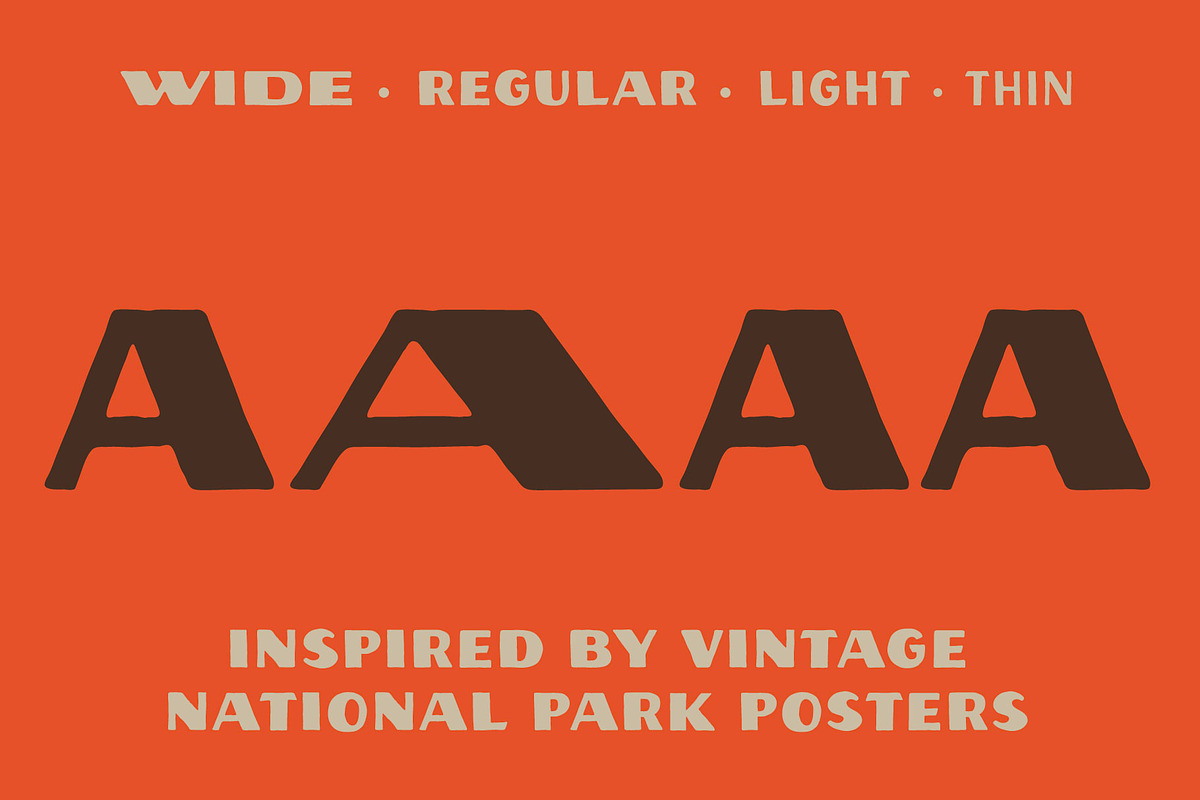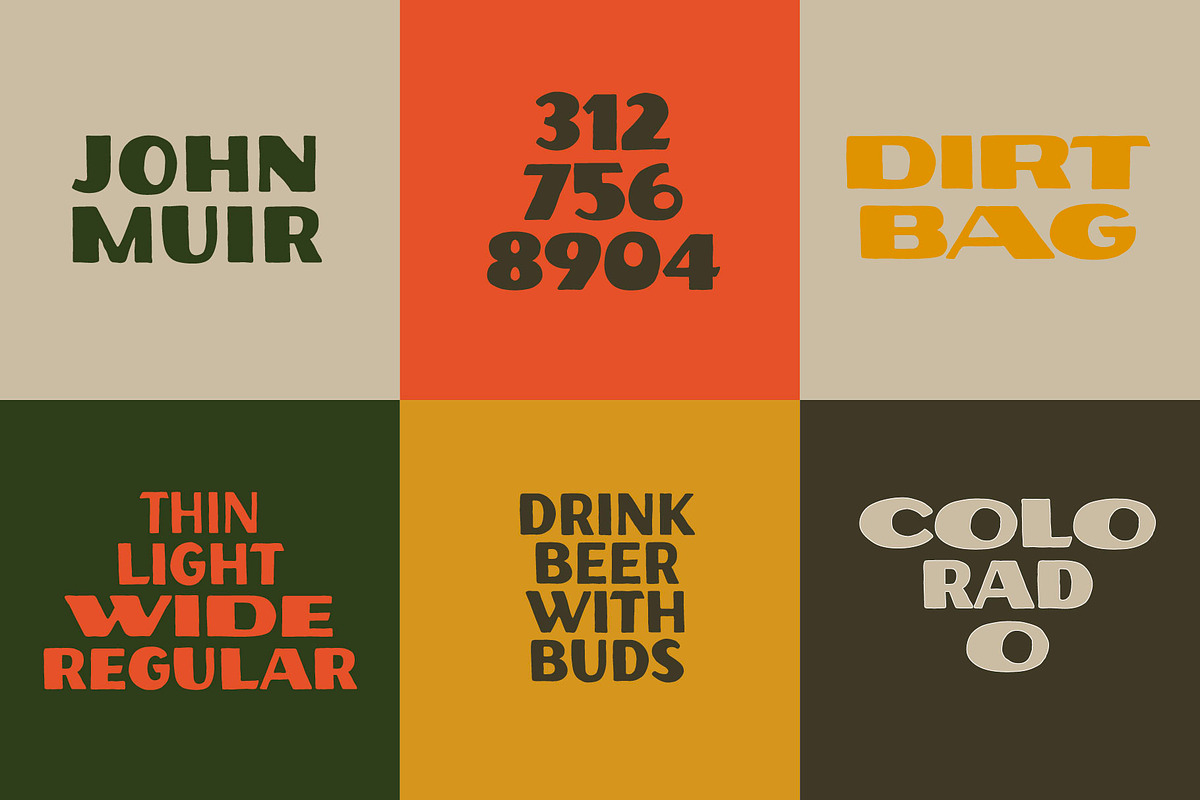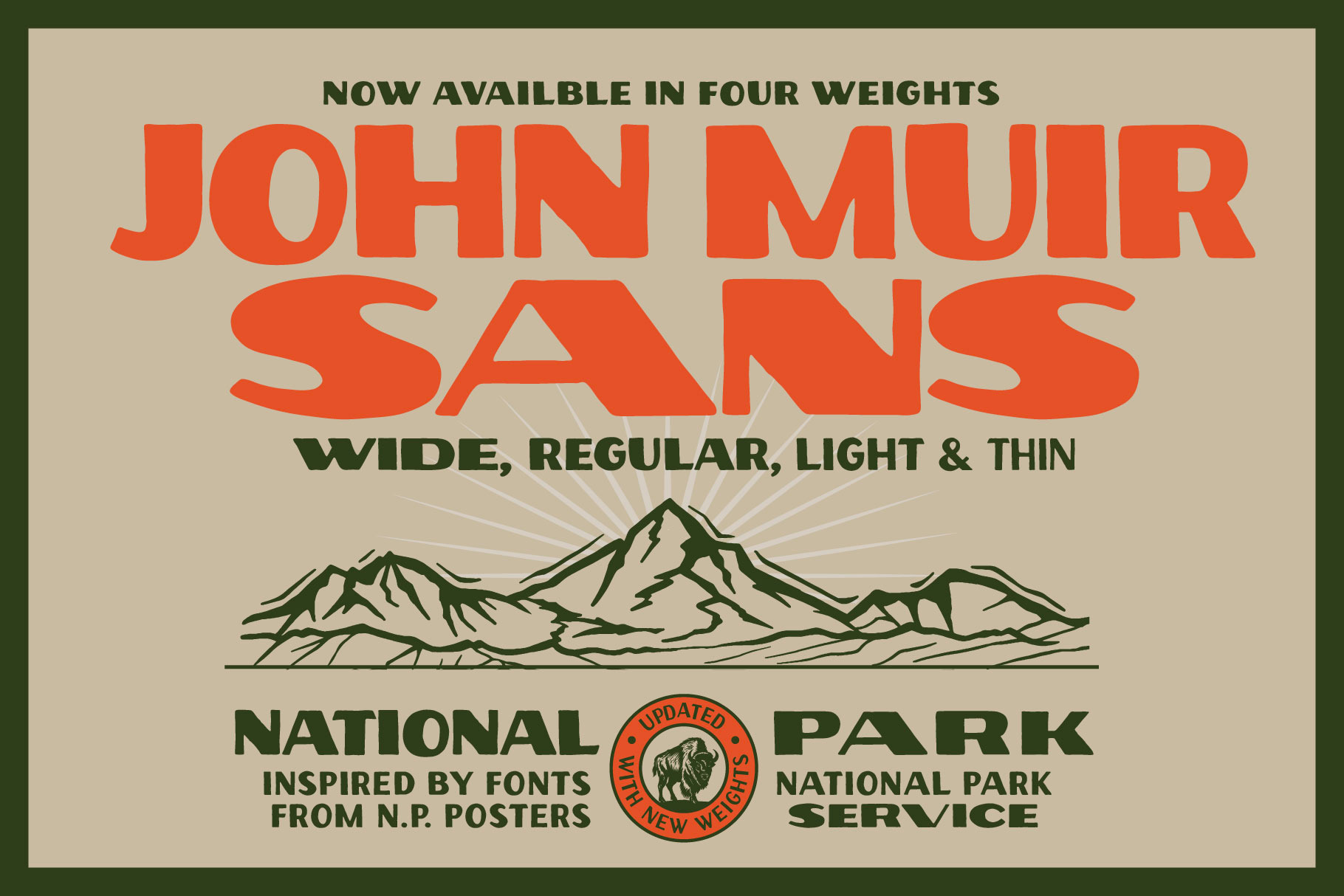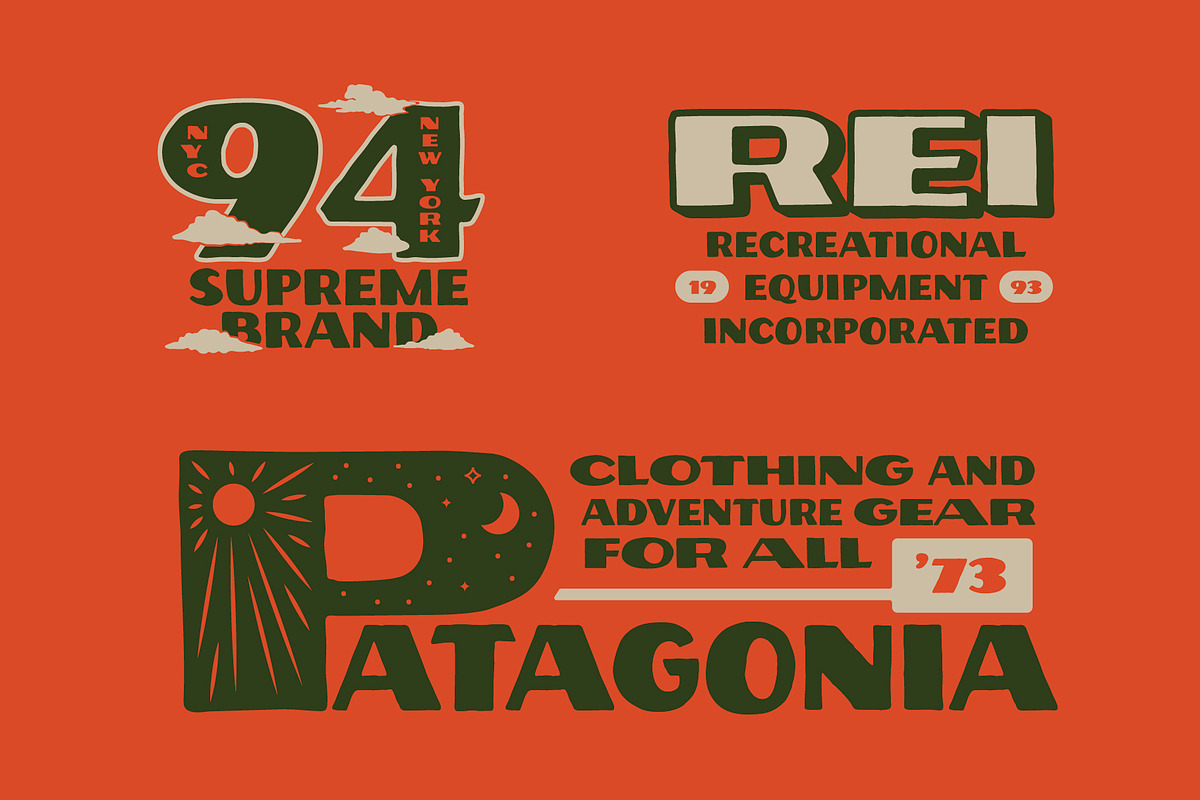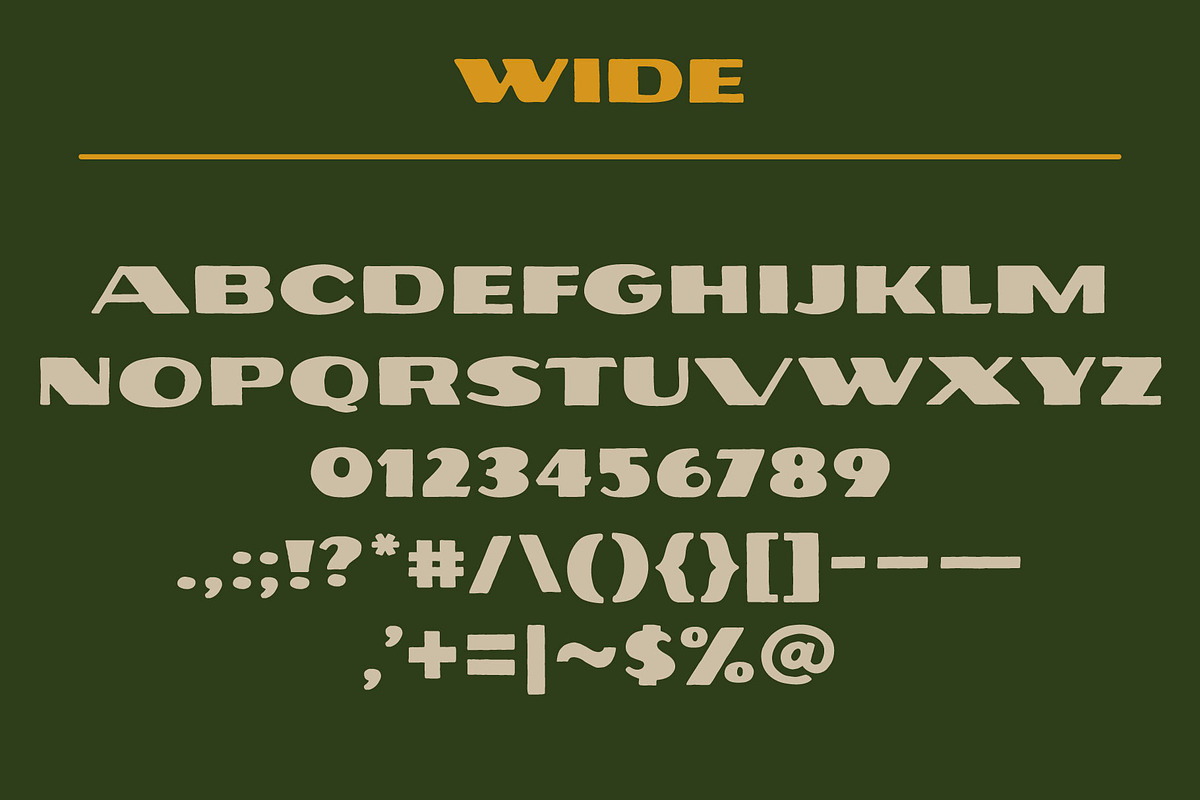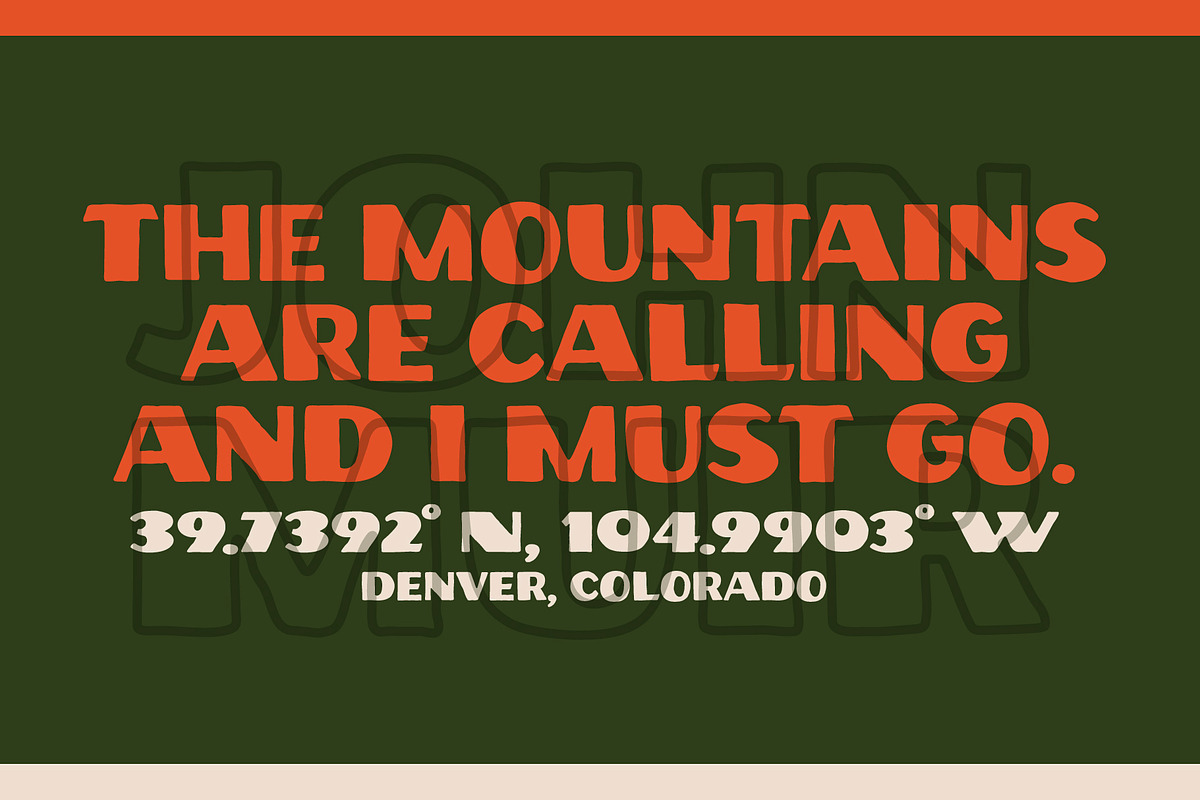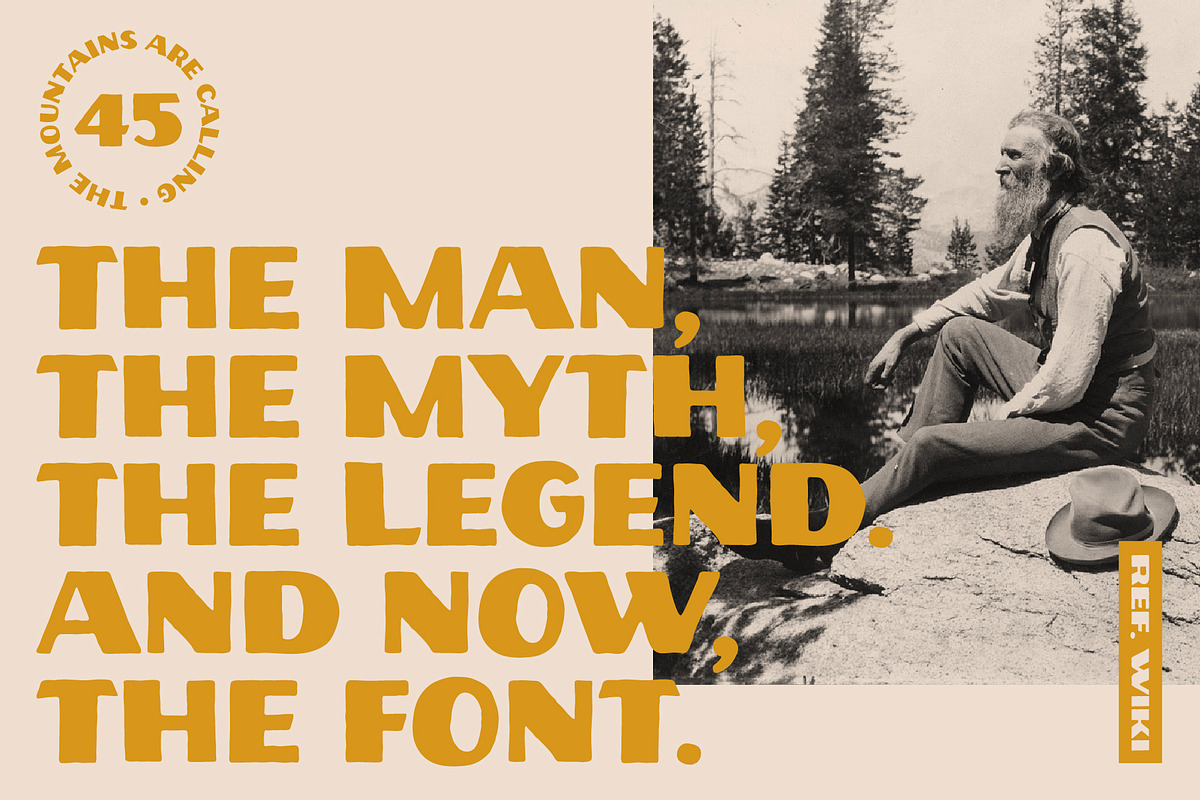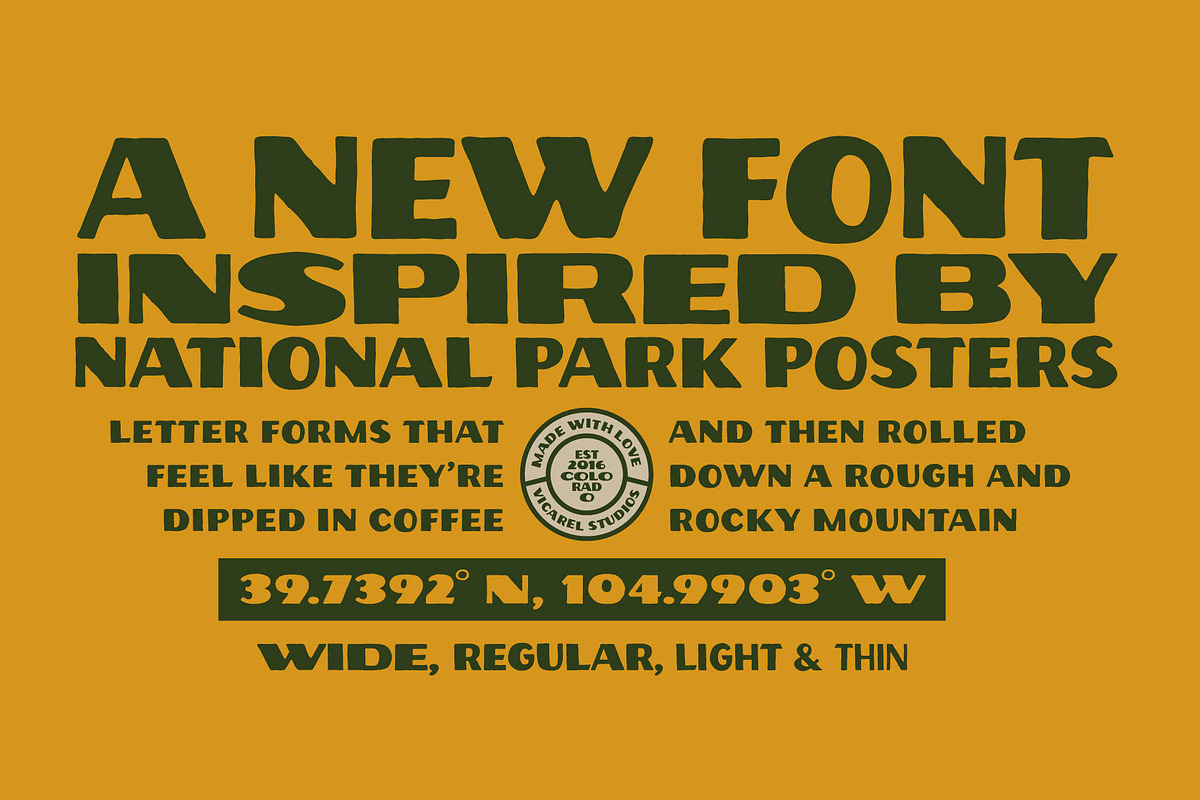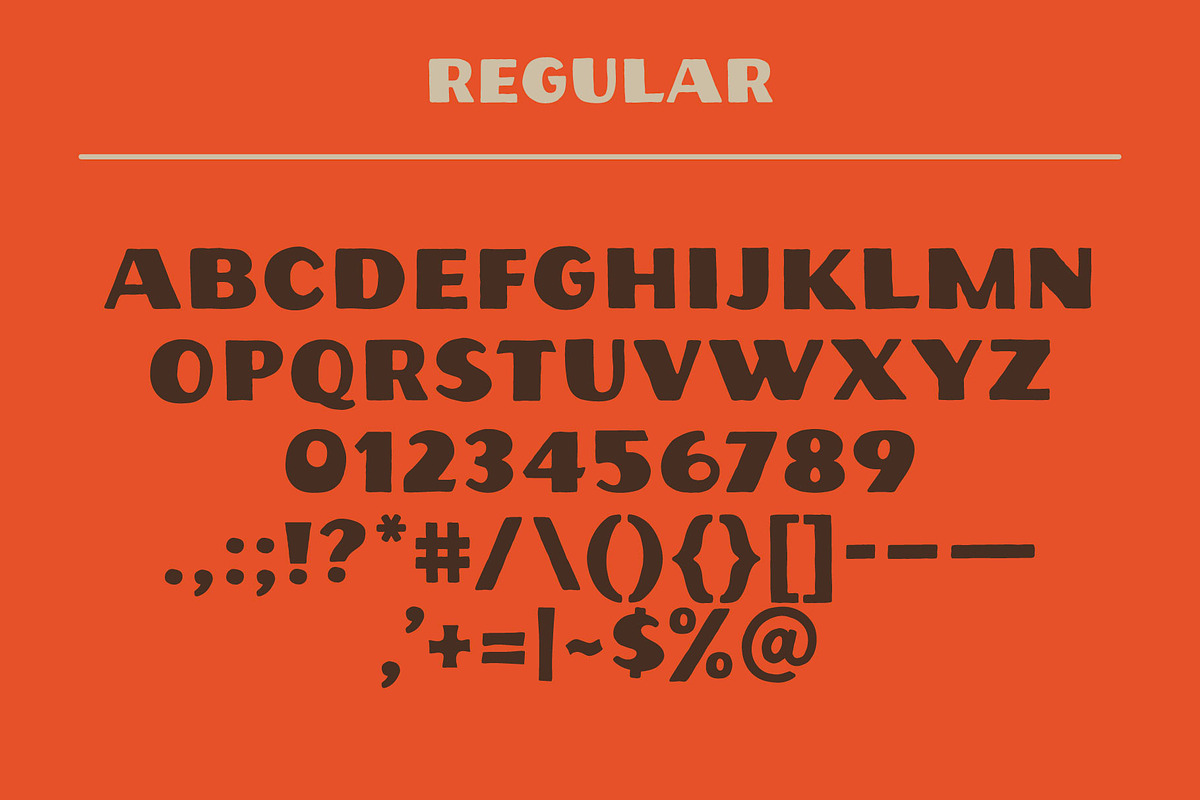
John Muir Sans – National Park Font
John Muir Sans, a National Park poster font by Vicarel Studios.
A versatile, rough and worn sans serif font inspired by vintage National Parks poster fonts, the National Forest Service and the iconic John Muir himself.
Immediately iconic for logo design and branding, tshirt and apparel design, or any other graphic design needs.
Love this throw-back font. Plus there's appropriate differences between the weights that you can use all of them together without it looking overdone.